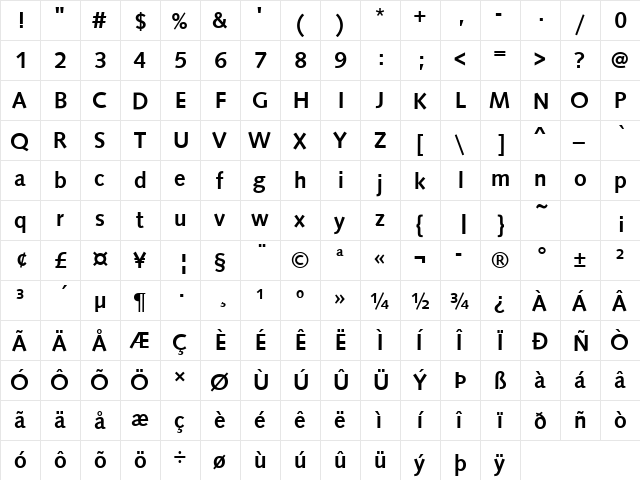
URWSamarkandDMed Regular
Design Context for URWSamarkandDMed Typeface
URWSamarkandDMed is a composed and adaptable typeface that performs quietly and consistently across a wide range of design contexts.